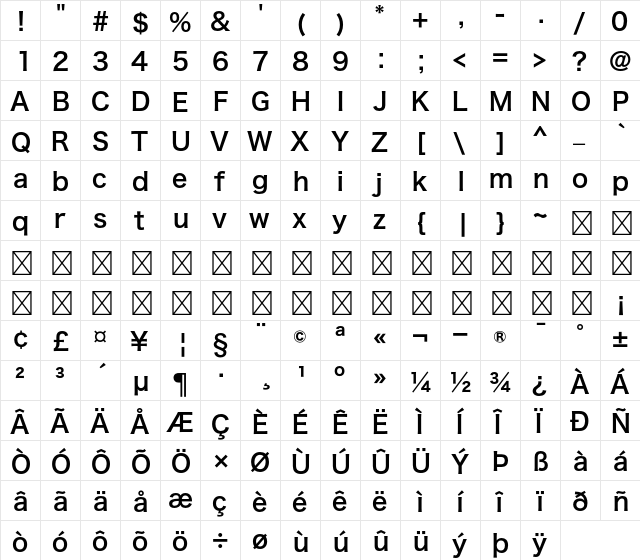
Hiragino Kaku Gothic Pro W6
| Foundry | Dainippon Screen Mfg. Co., Ltd. |
| Designer | JIYUKOBO Ltd. |
Design Context for Hiragino Kaku Gothic Pro Typeface
Hiragino Kaku Gothic Pro has the quiet confidence of well-executed sans-serif typography: versatile, unobtrusive, and dependable at any size.
Font Pairing: Works well alongside a characterful serif or display font that can carry the expressive load while Hiragino Kaku Gothic Pro handles the functional copy.
Pro Tip: Use Hiragino Kaku Gothic Pro for UI labels, navigation, and short-form body copy where clean legibility is the priority.